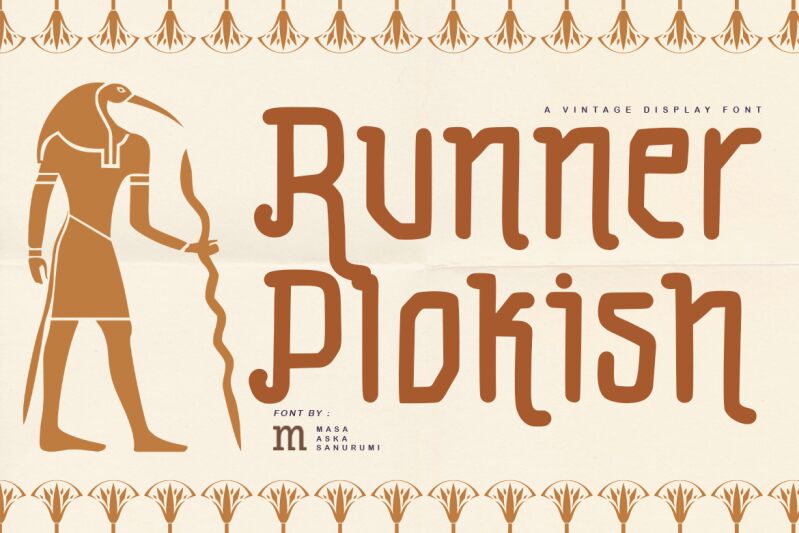
Runner Plokish, designed by the talented Masa Aska Sanurumi, is a sleek and modern display font with a semi-light weight and condensed width. Its sharp edges and clean lines make it perfect for projects that require a bold statement. Use it for branding, headlines, posters, or even album covers to give your design an instant edge. Runner Plokish's unique style is versatile enough to be used in a variety of creative projects, from fashion to technology. With its legibility and distinctive look, this semi-light font will add an extra layer of sophistication to your designs.
Runner Plokish
Masa Aska Sanurumi